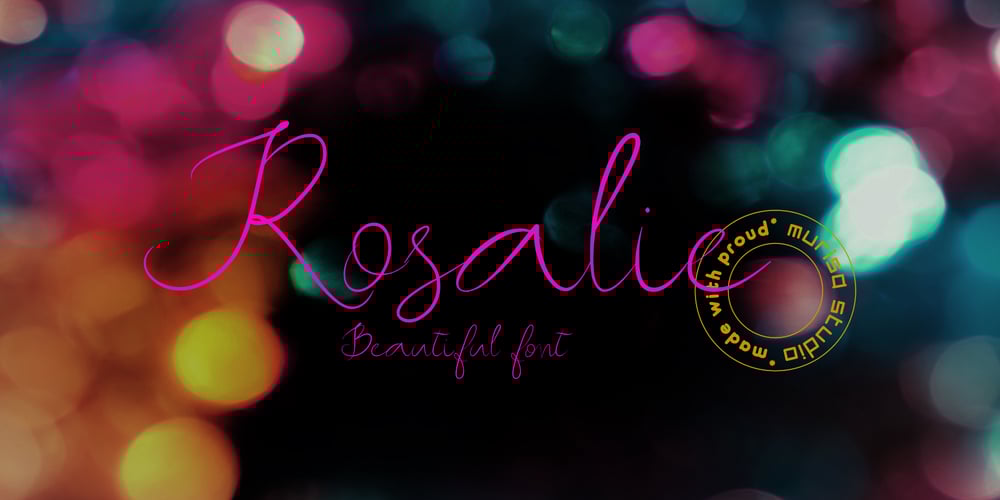
Murisa Rosalie Font Family was designed by Lili Sadili and published by Murisa Studio. Murisa Rosalie contains 1 styles and family package options. Today we want to present a new font. Murisa Rosalie. This font is inspired by the beauty of a woman and her elegance. There are many glyphs in it that will impress you when using it. The Murisa Rosalie font is very suitable for those of you who want to promote beauty and women’s care products. Get it now.